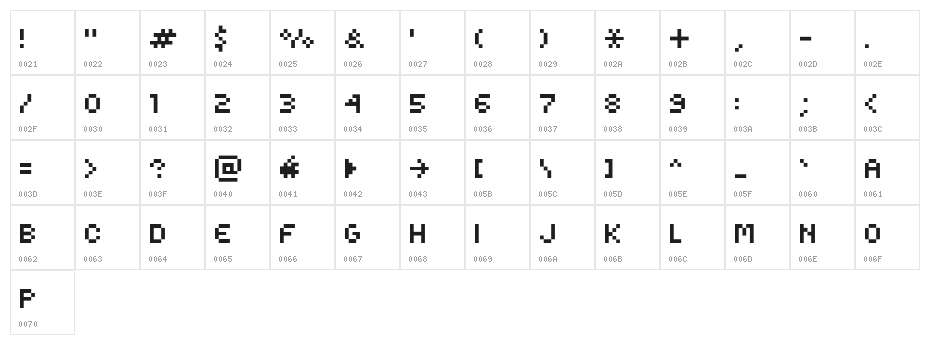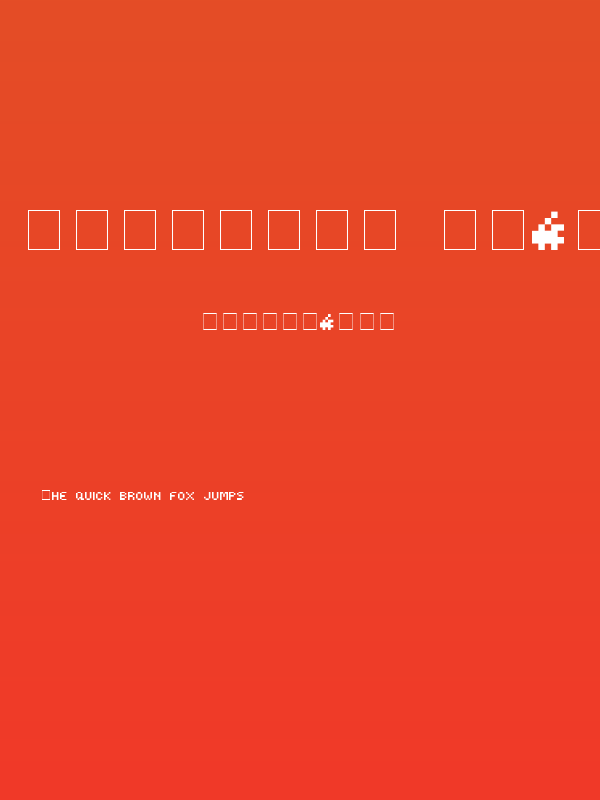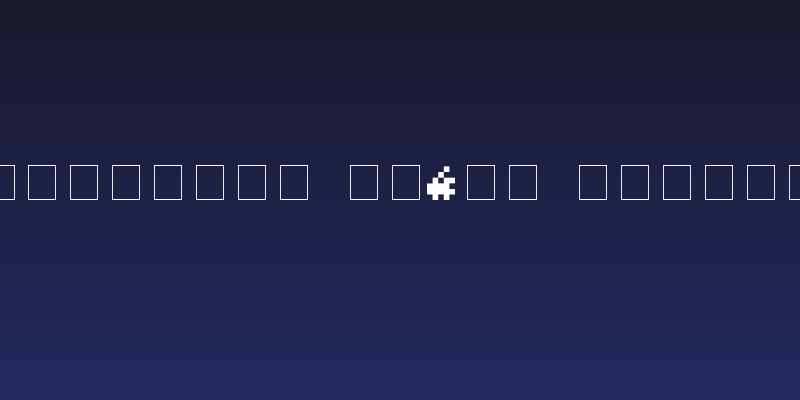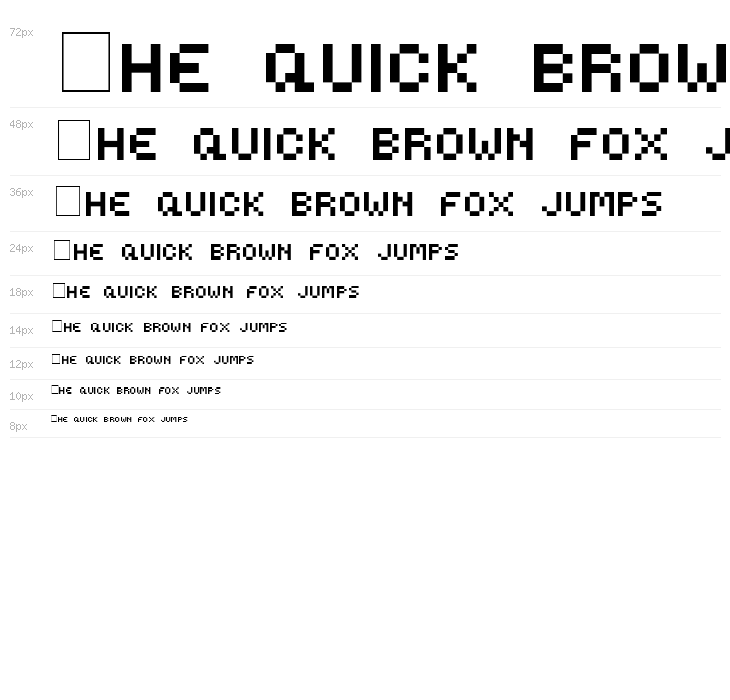
Kovensky small medium Font
Kovensky small medium Description
This font features a pixelated, blocky design reminiscent of early digital displays and retro video games. Each character is constructed with a grid-like precision, giving it a distinctly digital and geometric appearance. The uppercase letters are bold and uniform, while the numbers and special characters maintain the same pixelated style, ensuring consistency across all glyphs. The font's design is straightforward, with no curves or embellishments, emphasizing a minimalist and utilitarian aesthetic. This style is ideal for projects that aim to evoke nostalgia or a tech-oriented theme.
Overall StyleRetro, Digital
Use CaseHeadlines, Logos, Digital Art
Proposed ProjectsIdeal for retro video game designs, tech-themed posters, digital art projects, and any creative work that requires a nostalgic or digital feel.